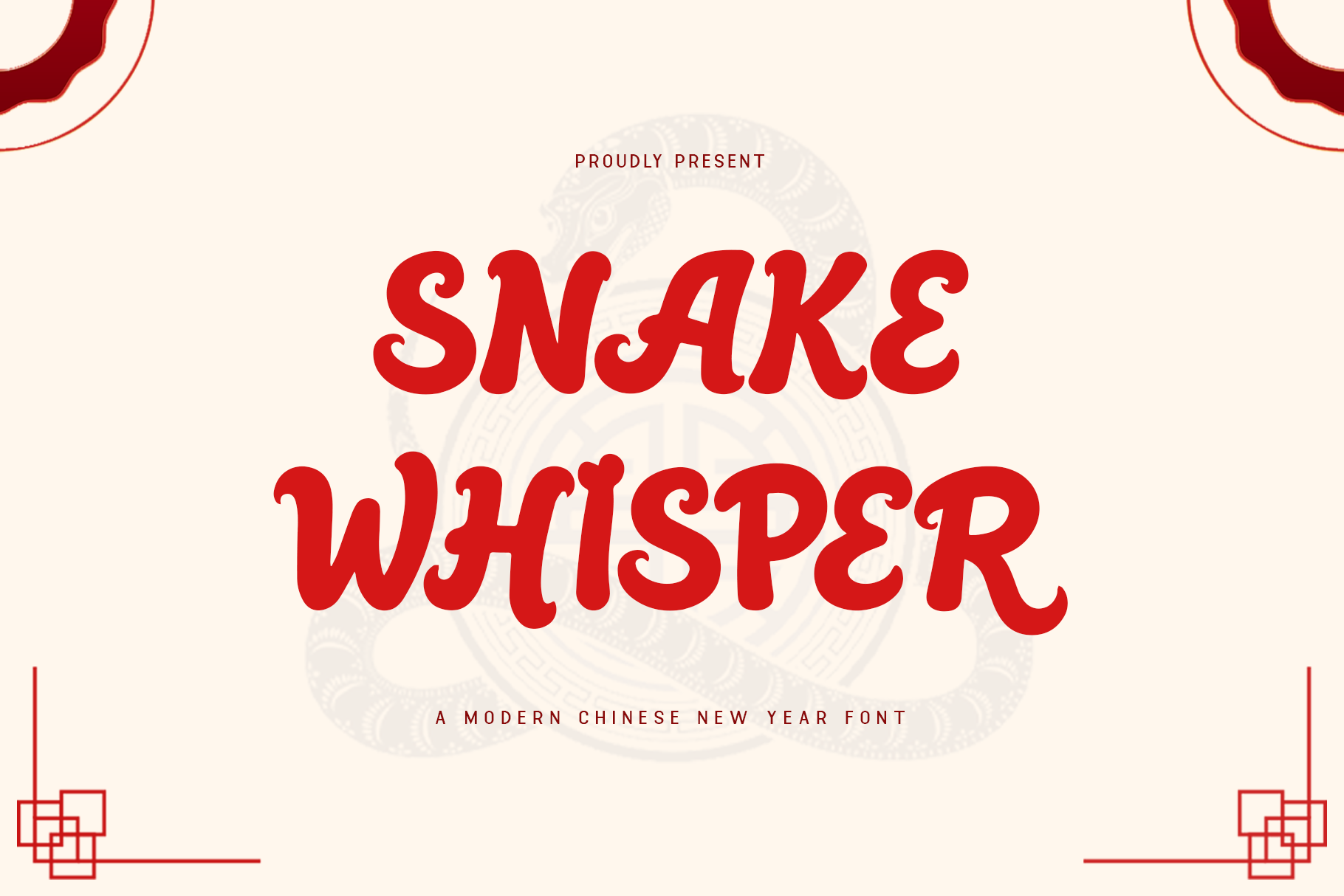
Snake Whisper - Modern Chinese Font
Snake Whisper - A Modern Chinese New Year Font
Introducing Snake Whisper, a modern font that captures the quiet elegance and mystique of the serpent. Designed for the Chinese New Year, this typeface combines smooth, flowing curves with gentle twists, evoking the graceful movement of a snake.
Perfect for invitations, event branding, and festive promotions, Snake Whisper brings a touch of mystery and refinement to your designs. Its understated beauty and cultural symbolism make it an ideal choice for projects that seek a balance of elegance and subtlety.
Snake Whisper is the perfect font for those looking to add a whisper of serpentine elegance to their Chinese New Year creations.